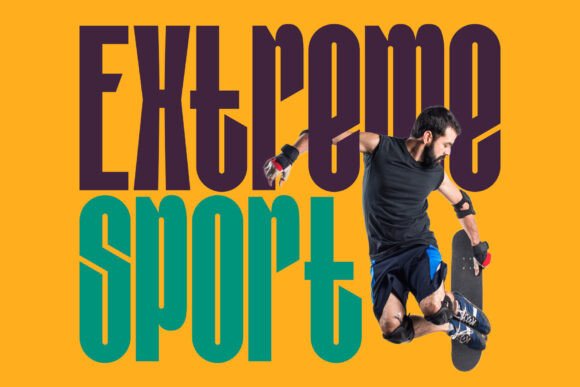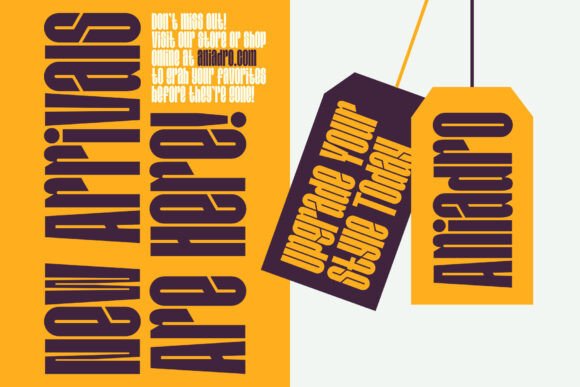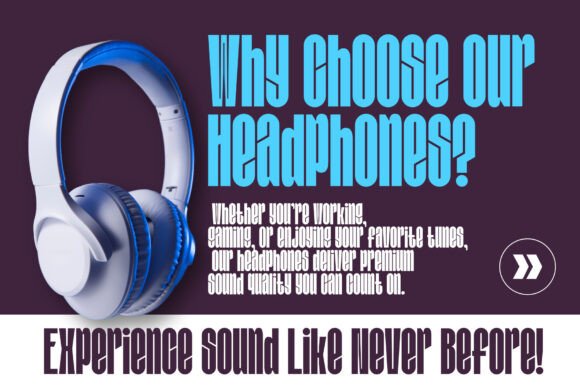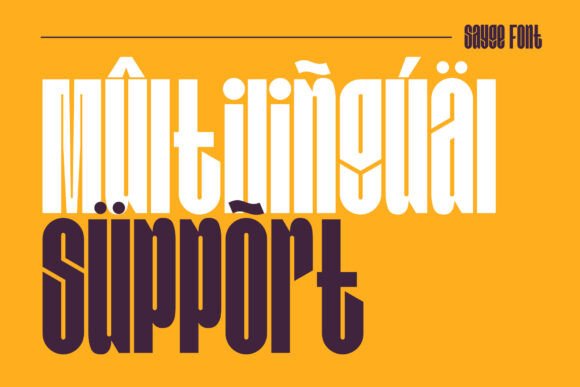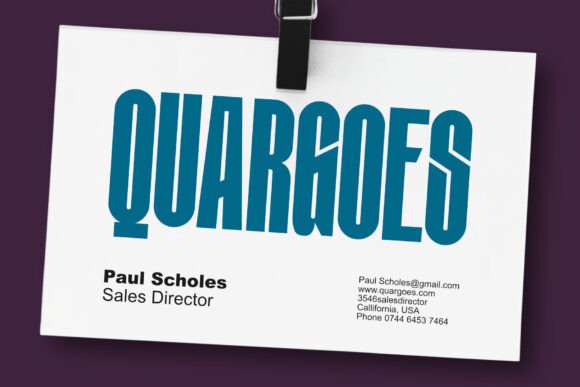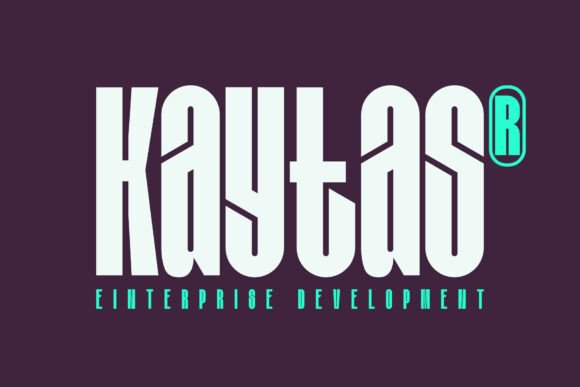
Introduction to Sayge Font
Have you ever stared at a blank canvas, waiting for inspiration to strike? For designers, this moment can be both exhilarating and daunting. It’s the moment when creativity meets practicality, and the right design resource can make all the difference. That’s where Sayge Font comes in – a bold and modern logo font that’s about to revolutionize your creative projects.
With its sleek and innovative design, Sayge Font is perfect for making a statement in modern branding, logo design, and other creative endeavors. Its geometric shapes and sharp lines exude confidence and sophistication, while its unique letterforms combine striking angles with a balanced structure. Whether you’re working on a high-impact headline or stylish text application, Sayge Font is the perfect choice for designers who demand high quality and versatility.
Key Features of Sayge Font
- High-quality design resource for creative projects: Sayge Font offers a unique and stylish typography that can elevate any design.
- Unique characteristics: Sayge Font features a distinctive and modern design aesthetic, with intricate details and subtle flair that sets it apart from other fonts.
Honest Review: Sayge Font
As a designer, I’m always on the lookout for high-quality design resources to elevate my creative projects. The Sayge Font has been a great addition to my toolkit, and I’m excited to share my honest review.
- ✨ Elegant and modern design aesthetic that’s perfect for minimalist projects.
- ✨ Highly legible and clear, making it suitable for both body text and headings.
- ⚠️ Some users may find the font to be too simplistic or lacking in character, depending on their design preferences.
Overall, I’m impressed with the Sayge Font’s clean design and high quality. While it may not be the perfect fit for every project, it’s an excellent choice for designers looking for a modern, minimalist font with a transparent background. With its free download option, it’s a great design resource to have in your toolkit.
The Sayge Font is a high-quality design resource perfect for any creative project. With its unique style and transparent background, it adds a touch of sophistication to any design.
To get the most out of the Sayge Font, experiment with different font sizes, colors, and arrangements to create a unique design.